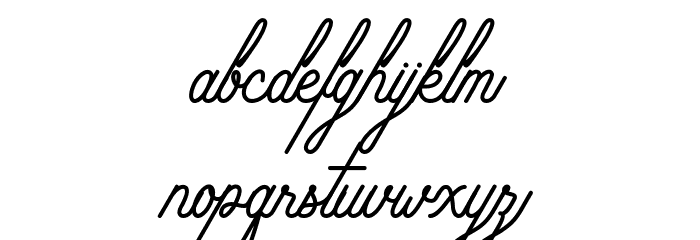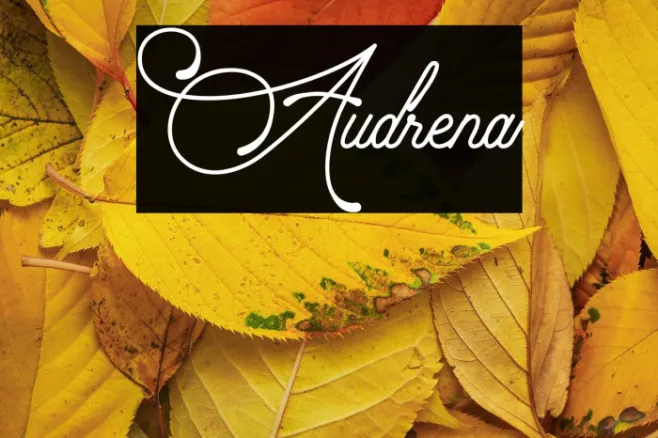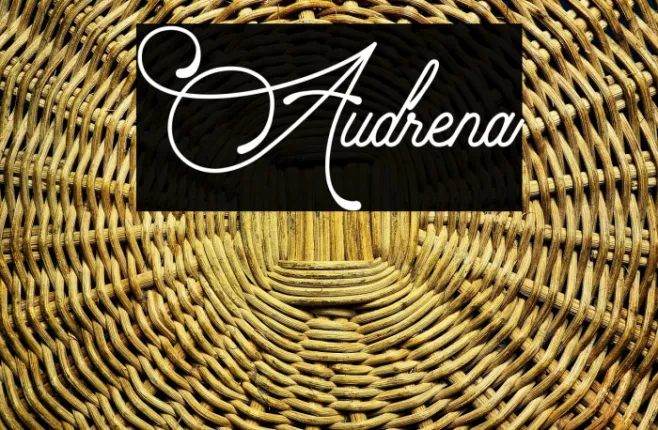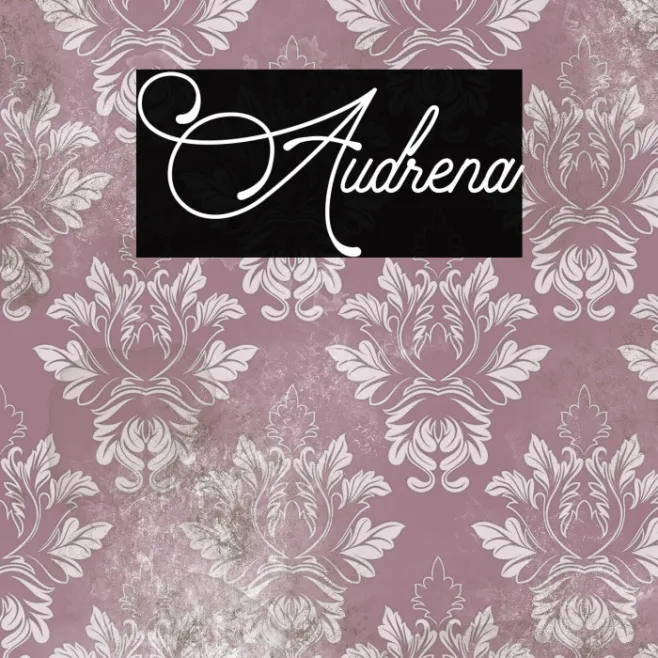
Audrena Font
This elegant script font features intricate, flowing letterforms with a high degree of ornamentation, particularly in the uppercase letters. The lowercase letters maintain a consistent slant, adding to the font's graceful appearance. The strokes are thin and delicate, with a medium contrast between thick and thin lines, enhancing its sophisticated style. The font's overall appearance is reminiscent of classic calligraphy, making it suitable for formal and decorative purposes. The character spacing is normal, allowing for readability while maintaining its ornate design.
An elegant, calligraphic script font with intricate, flowing letterforms.
- Proposed Projects: Ideal for wedding invitations, elegant branding, and high-end product packaging.
- Category: Script
- Overall Style: Classic
- Use Case: Logos, Invitations, Decorative text